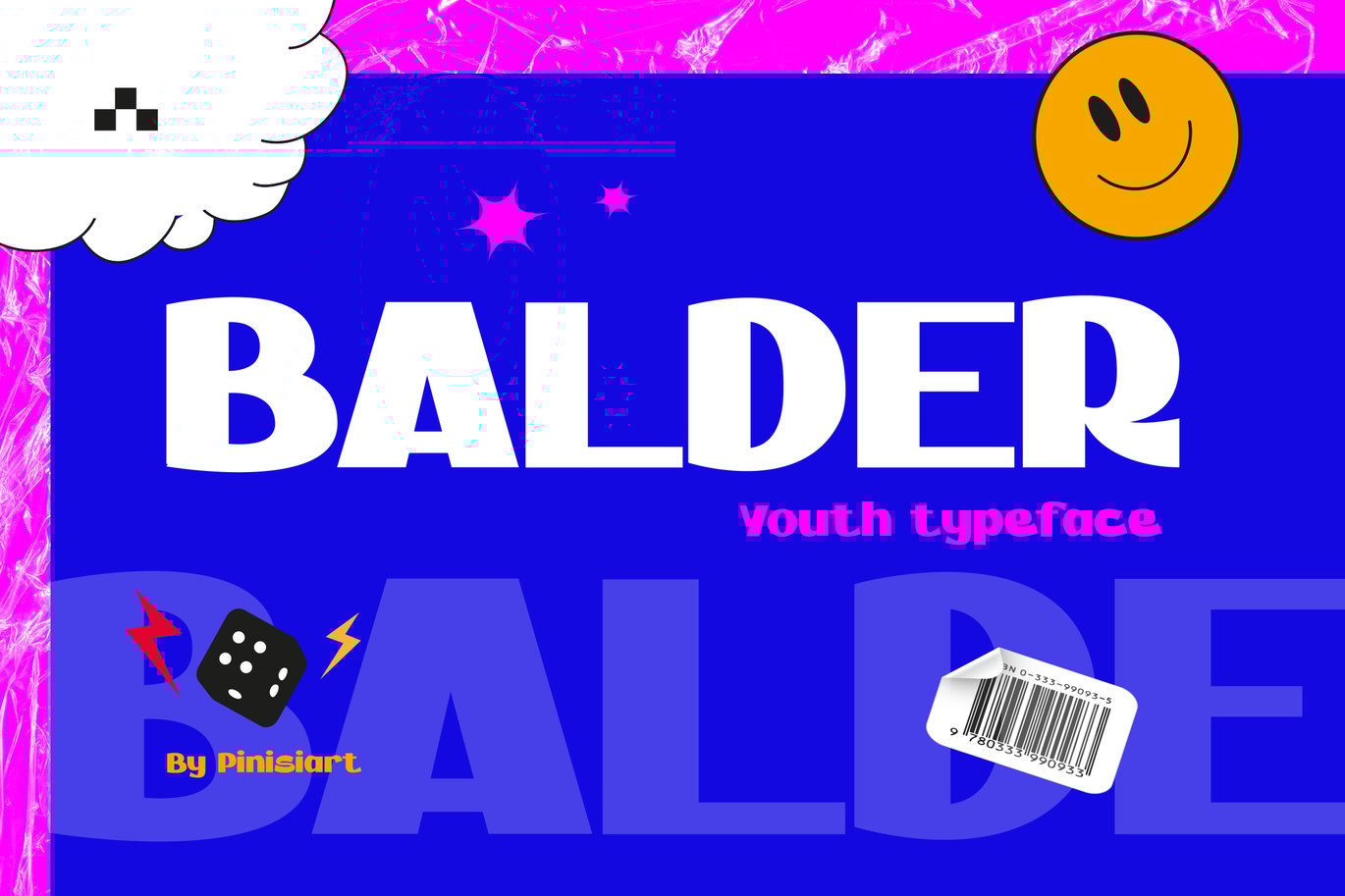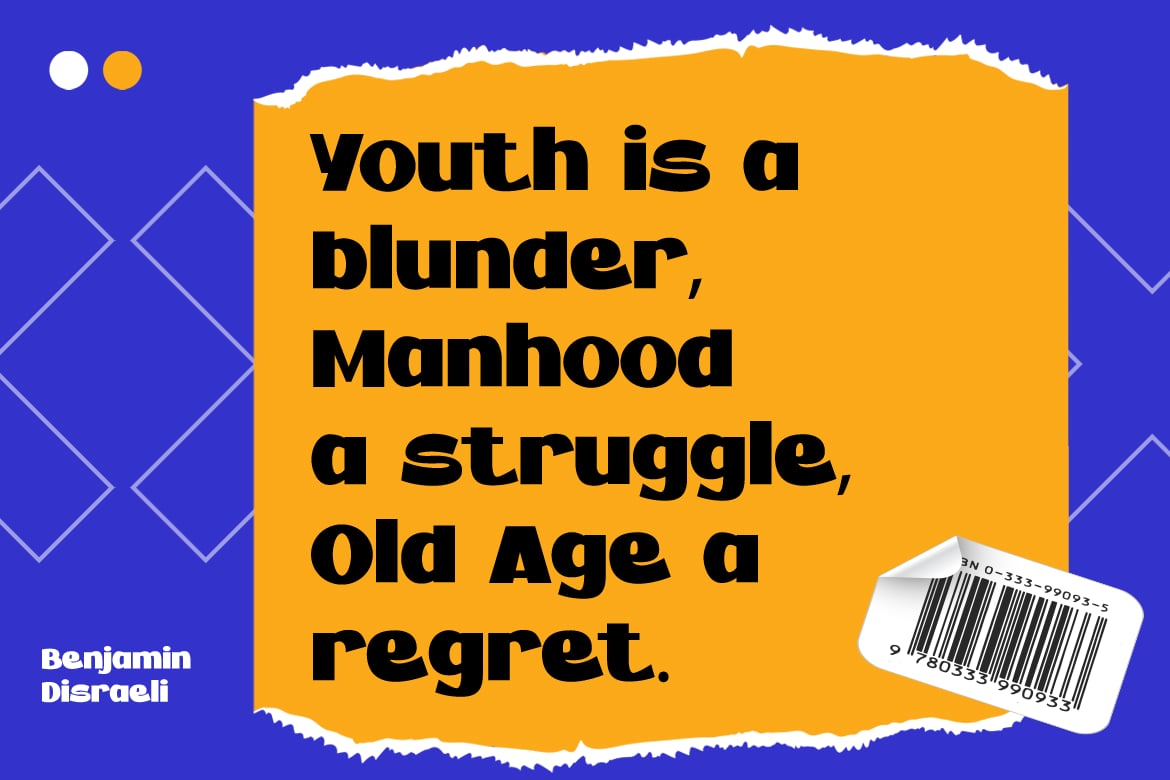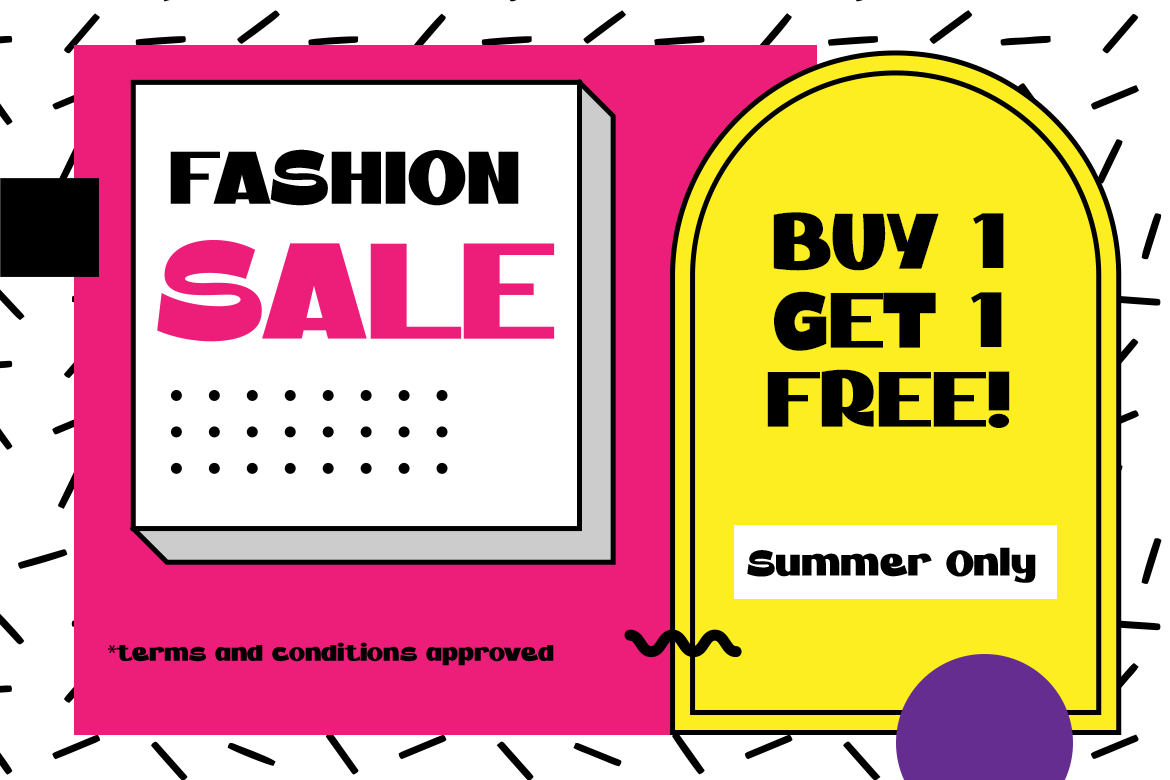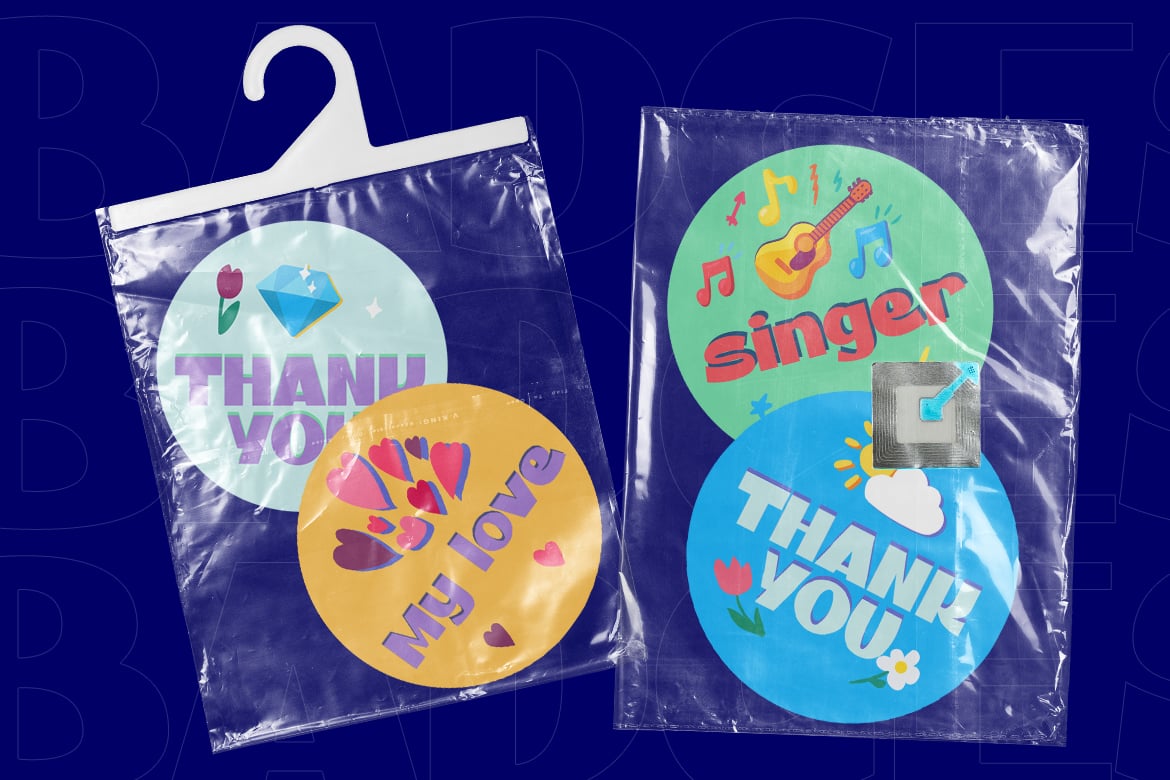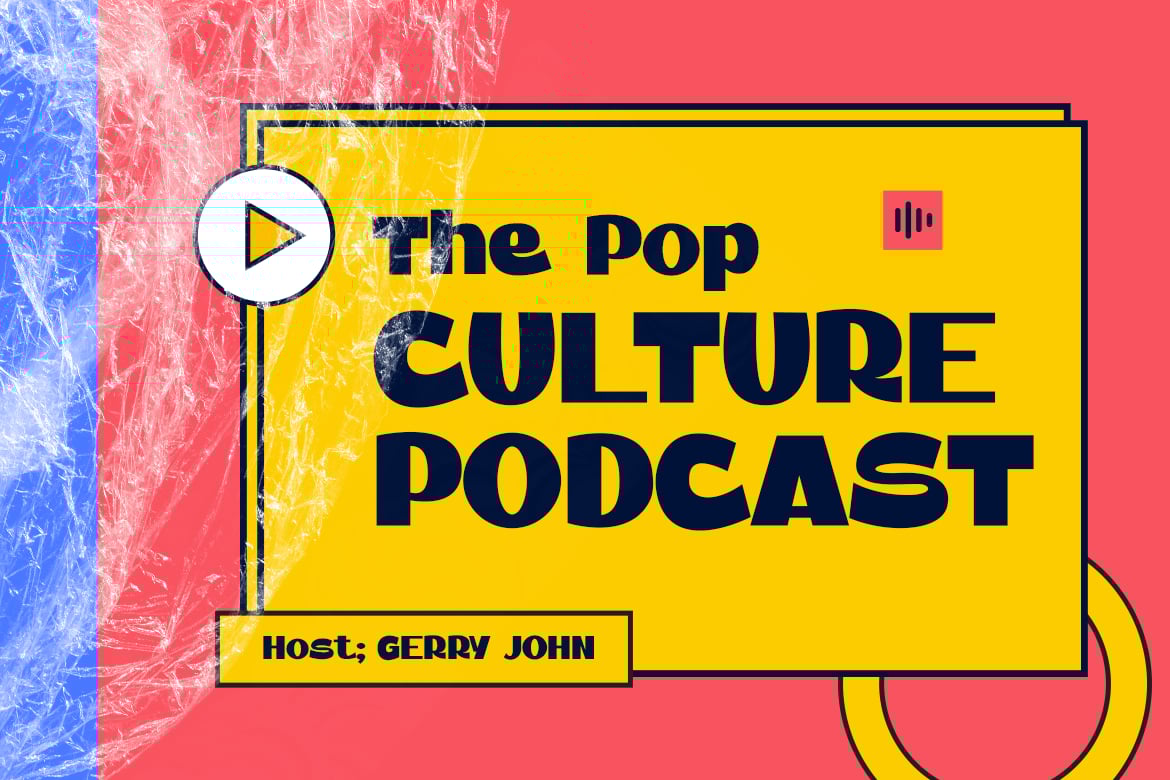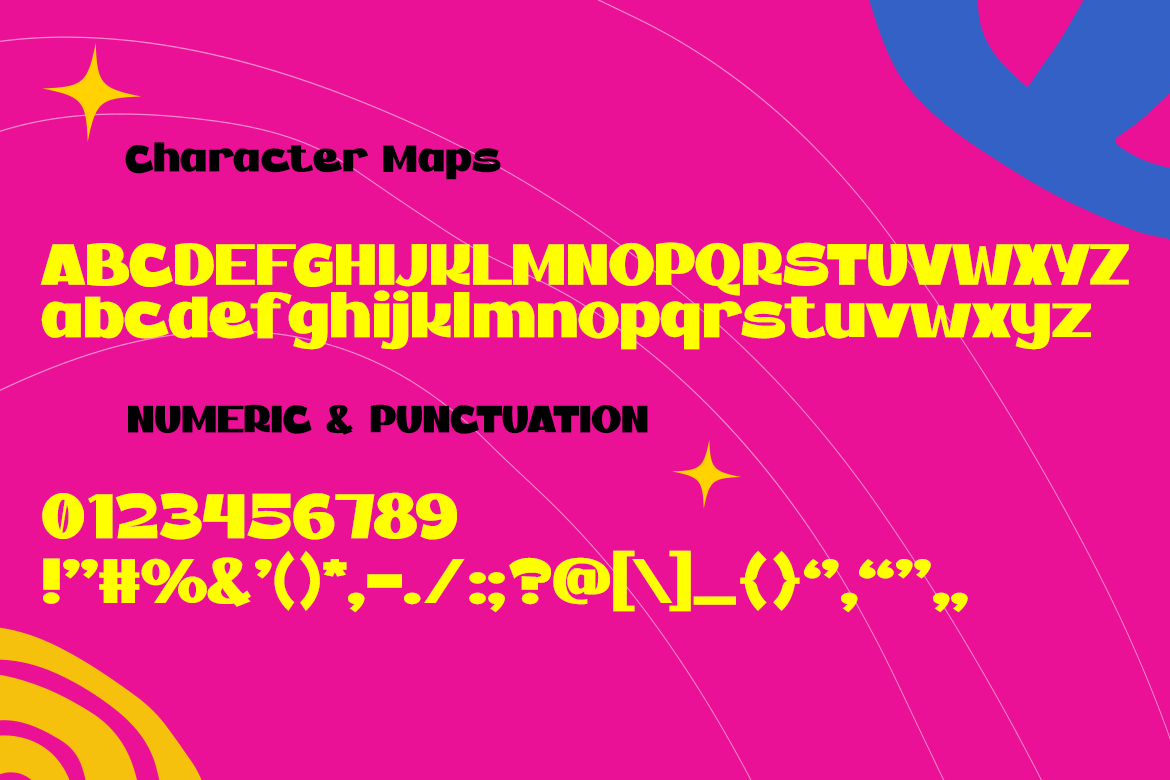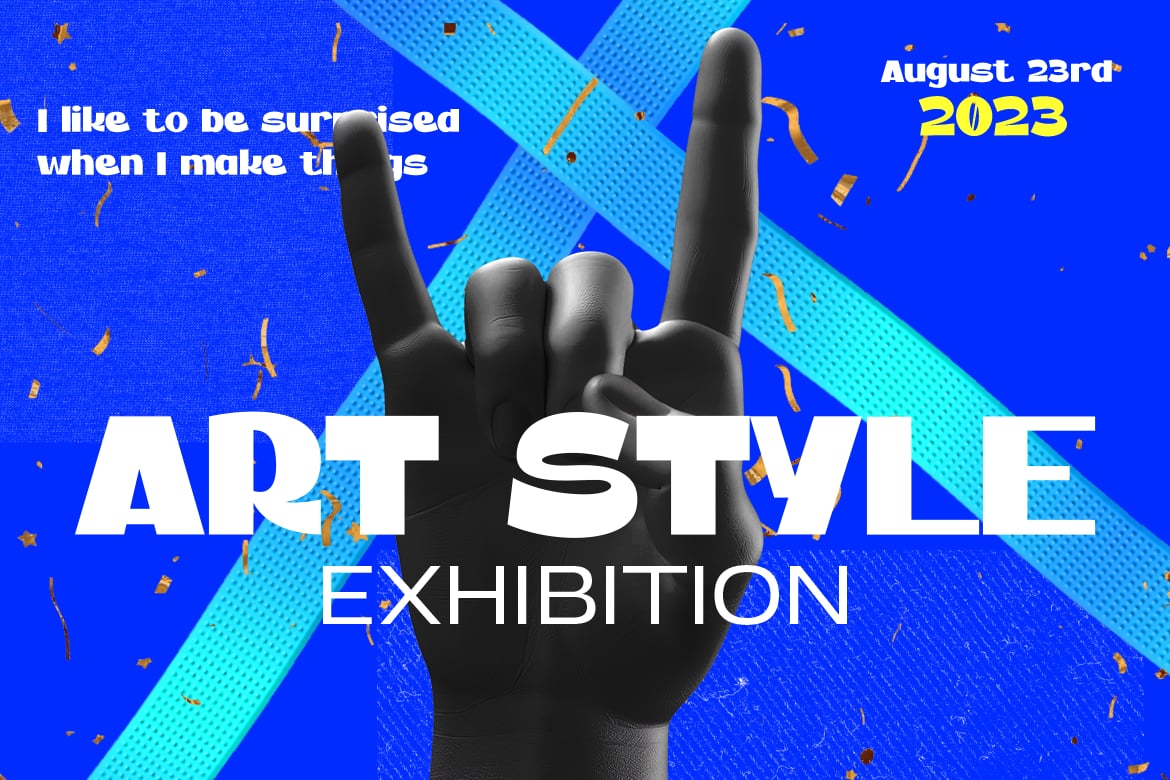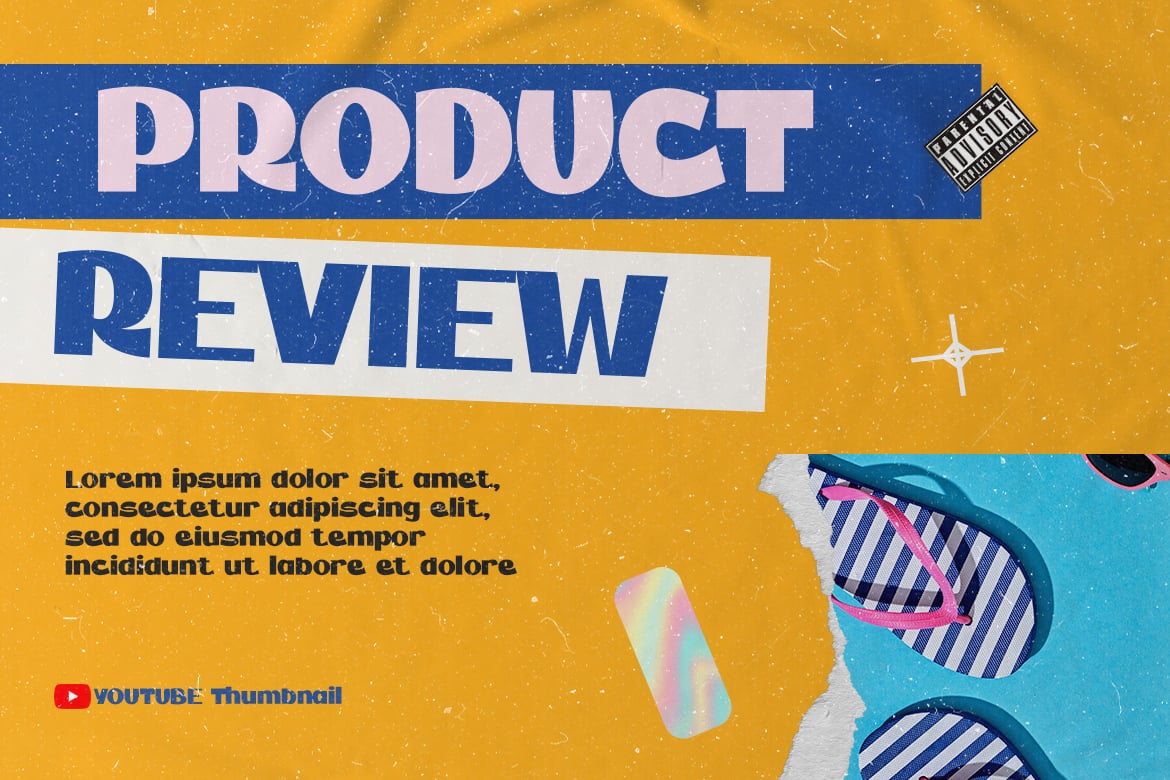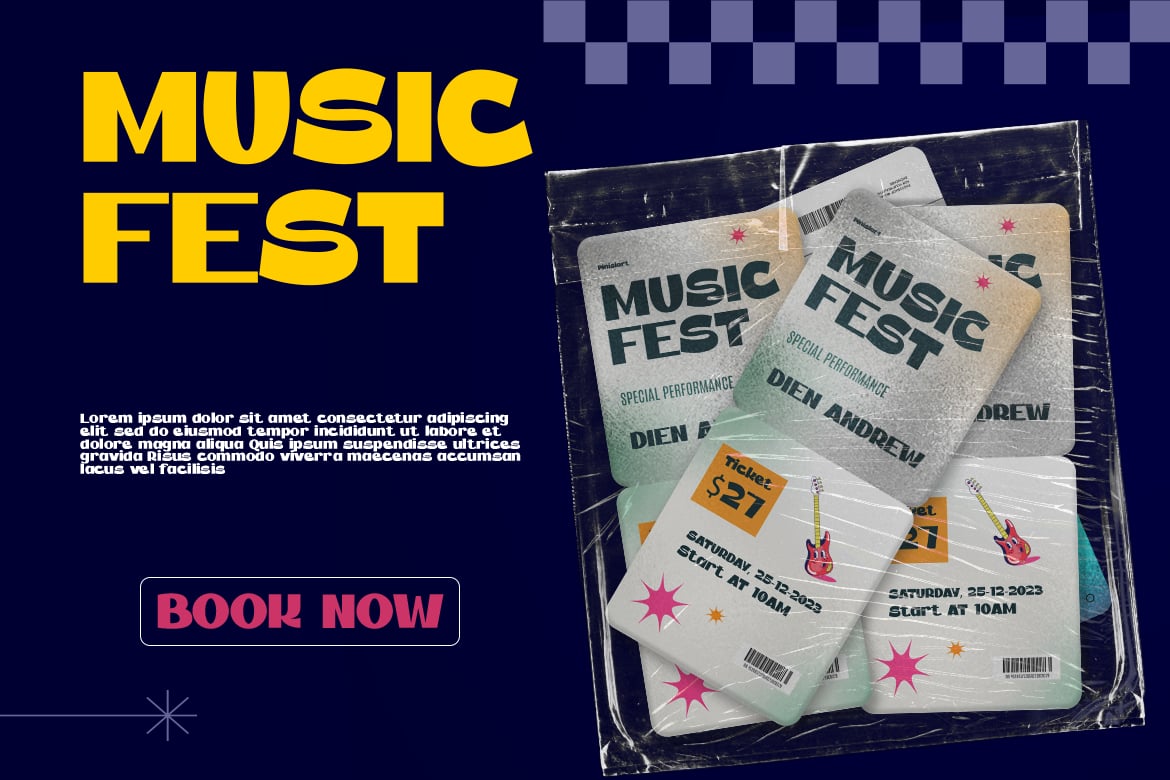
Bold & Edgy Youth Font – Balder
Make a bold impact with Balder, a youthful, rebellious display font designed to turn heads and command attention. With strong, chunky letterforms and a daring urban edge, Balder is the perfect font for Gen Z branding, streetwear aesthetics, and social media graphics.
Balder’s confident personality and playful energy make it ideal for fashion campaigns, pop culture projects, event posters, and hype-building visuals. Whether you’re crafting bold advertisements, dynamic product packaging, or street-style merch, this font delivers an unapologetic, trend-savvy aesthetic that’s impossible to ignore.
Why Choose Balder?
- Heavyweight & Impactful – Thick, bold letterforms that make statements.
- Youthful & Rebellious – Perfect for Gen Z and trendy streetwear aesthetics.
- Urban Pop Culture Vibes – Designed for posters, ads, fashion branding, and hype culture.
- Sharp & Clean – Crisp edges and structured form for easy readability in high-energy designs.
- Dynamic & Modern – Works across multiple creative fields, from retail to entertainment.
Balder is made for trendsetters—perfect for streetwear branding, music festival posters, pop culture magazines, modern advertising, youth-oriented merchandise, urban fashion labels, social media visuals, and viral campaign graphics. It’s built to energize any project with its bold presence!